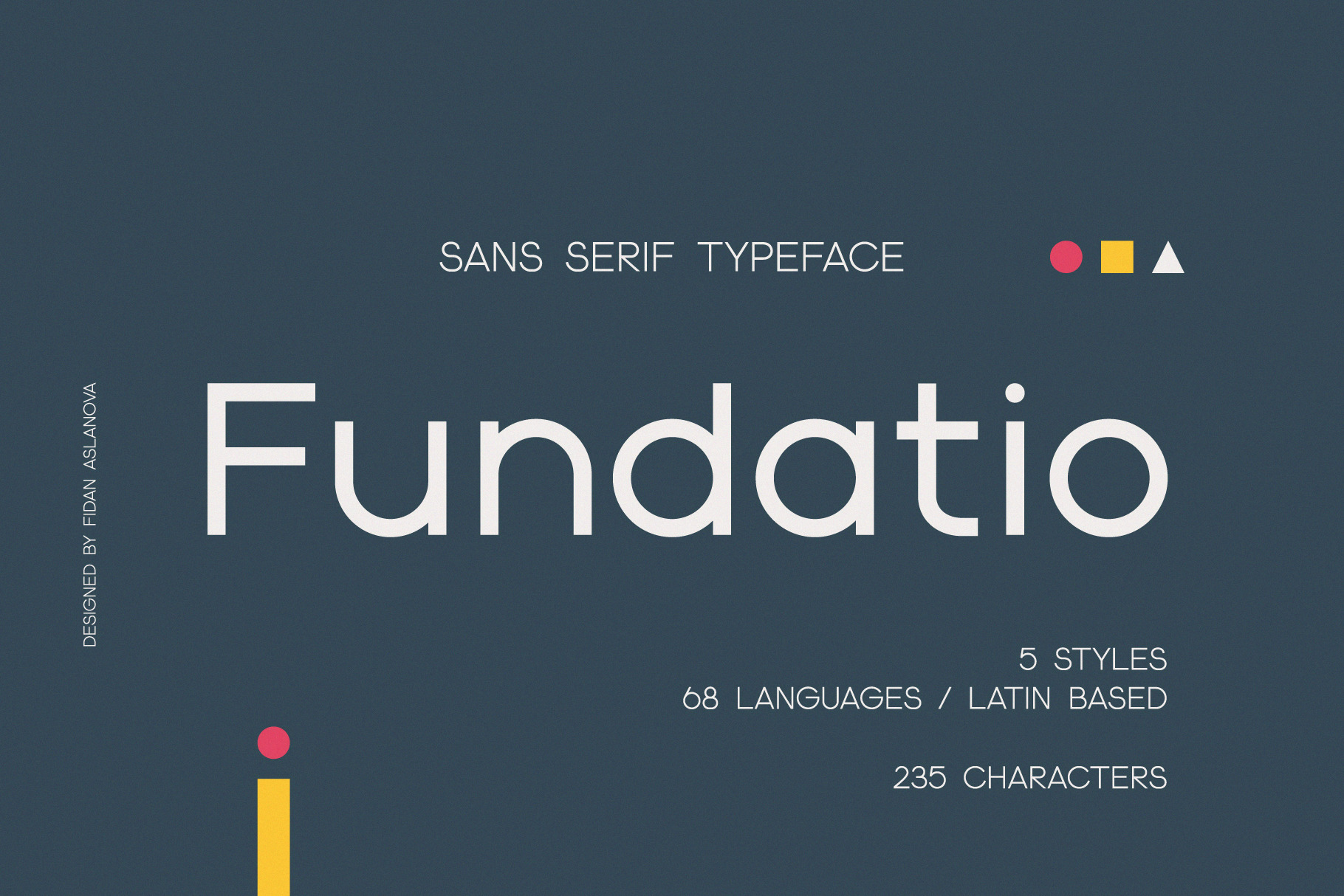
Fundatio Typeface
The Fundatio typeface is an improved and refined version of the Kiddie ToysBlock font, which was inspired by children's toy blocks: a square, a triangle, and a circle.
Fundatio continues to combine these simple shapes with a utilitarian approach, allowing it to be used not only for eye-catching headlines but also as a typeface for body text, expanding its versatility.
It is suitable for use on t-shirts, bags, cases, and other items, as well as for designing your projects, websites, and applications, adding a touch of naive simplicity and retro charm of the Bauhaus style.
The font family includes five styles: Light, Regular, Medium, Semi Bold, and Bold.
Sans-serif/235 characters.
Support for 68 languages:
Afrikaans,Albanian,Asu,Basque,Bemba,Bena,Breton,Catalan,Chiga,Cornish,Danish,Dutch,English,Estonian,Faroese,Filipino,Finnish,French,Friulian,Galician,German,GusiiIce,landic,Indonesian,Irish,Italian,Kabuverdianu,Kalenjin,Kinyarwanda,Luo,Luxembourgish,Luyia,Machame,Makhuwa-Meetto,Makonde,Malagasy,Manx,Morisyen,North Ndebele,Norwegian Bokmål,Norwegian Nynorsk,Nyankole,Oromo,Portuguese,Quechua,Romansh,Rombo,Rundi,Rwa,Samburu,Sango,Sangu,Scottish Gaelic,Sena,Shambala,Shona,Soga,Somali,Spanish,Swahili,Swedish,Swiss German,Taita,Teso,Uzbek (Latin),Volapük,Vunjo,Zulu